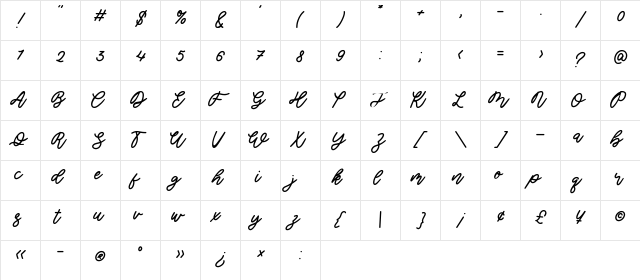
Amertano Regular
| Designer | Balpirick Studio |
Design Context for Amertano Typeface
Amertano takes a measured approach to typography — its balanced proportions and neutral character make it a reliable workhorse for both digital and print work.